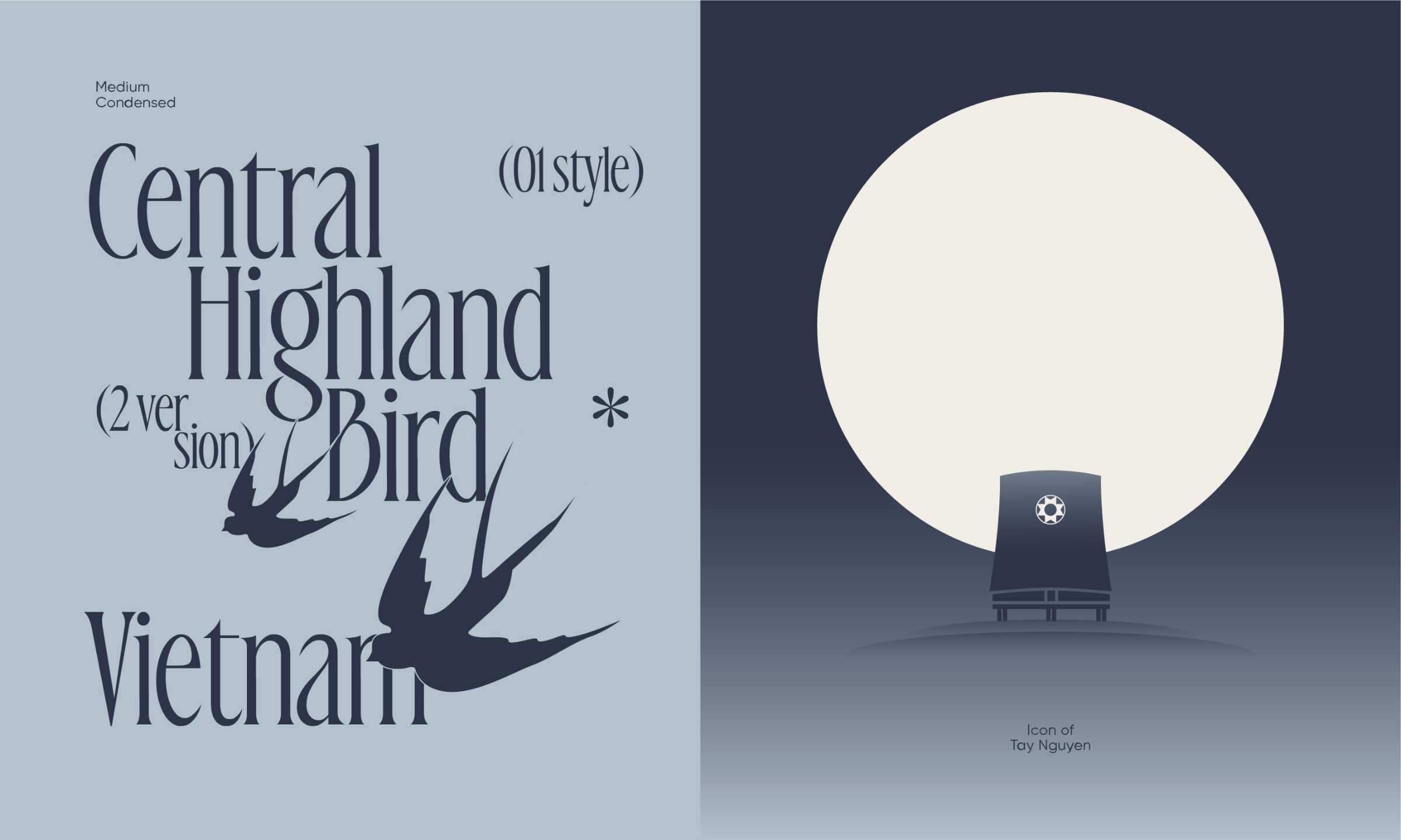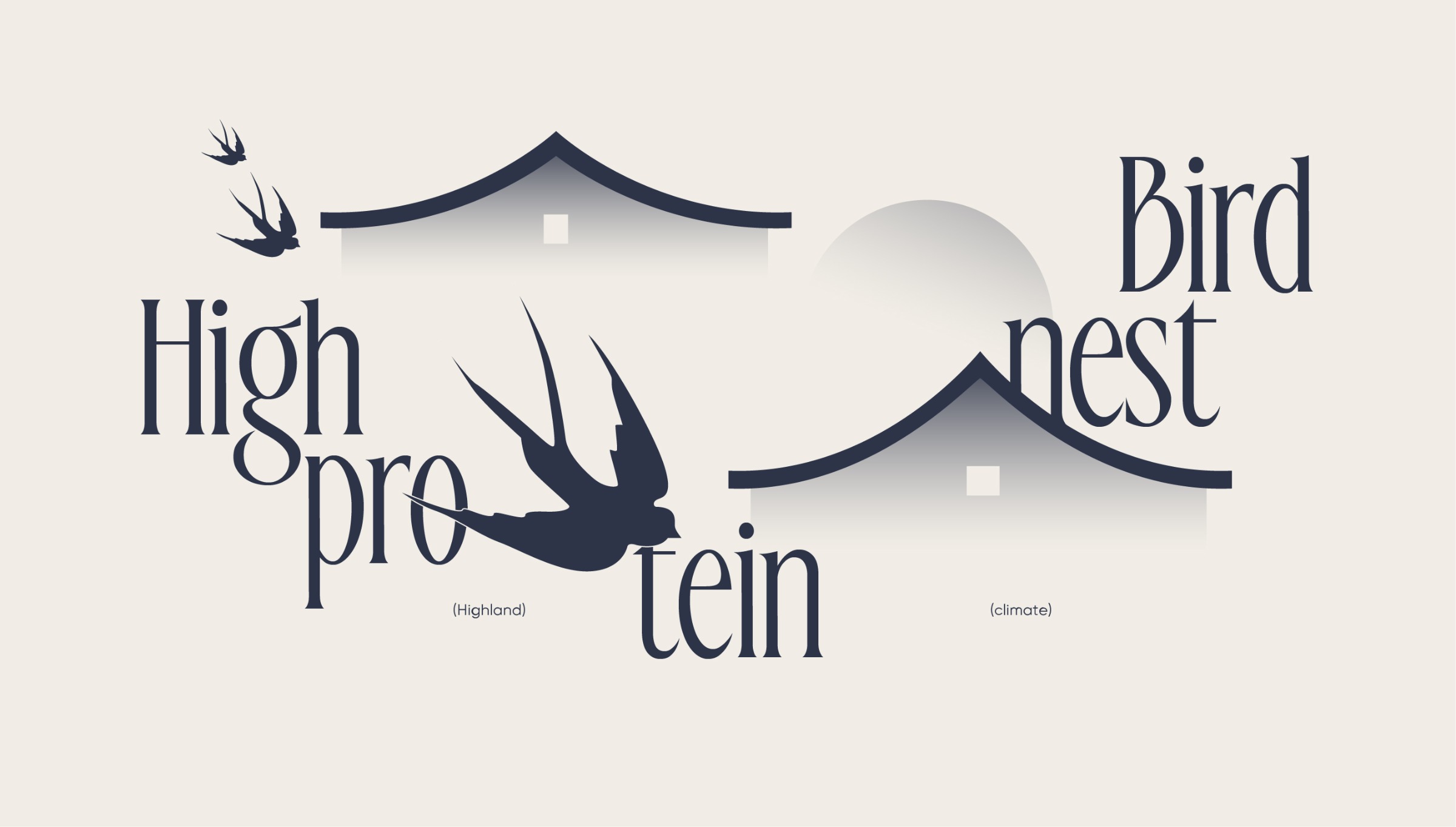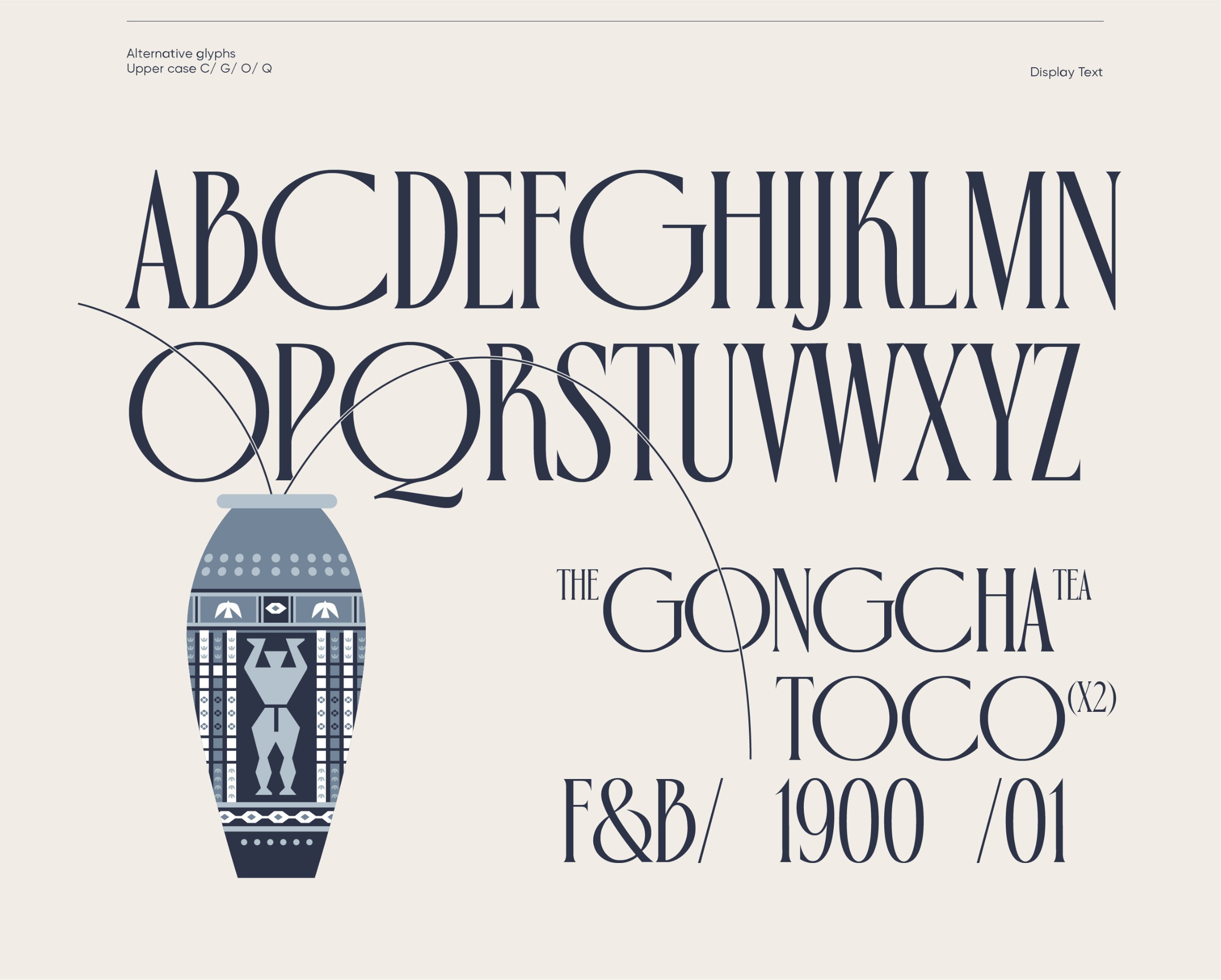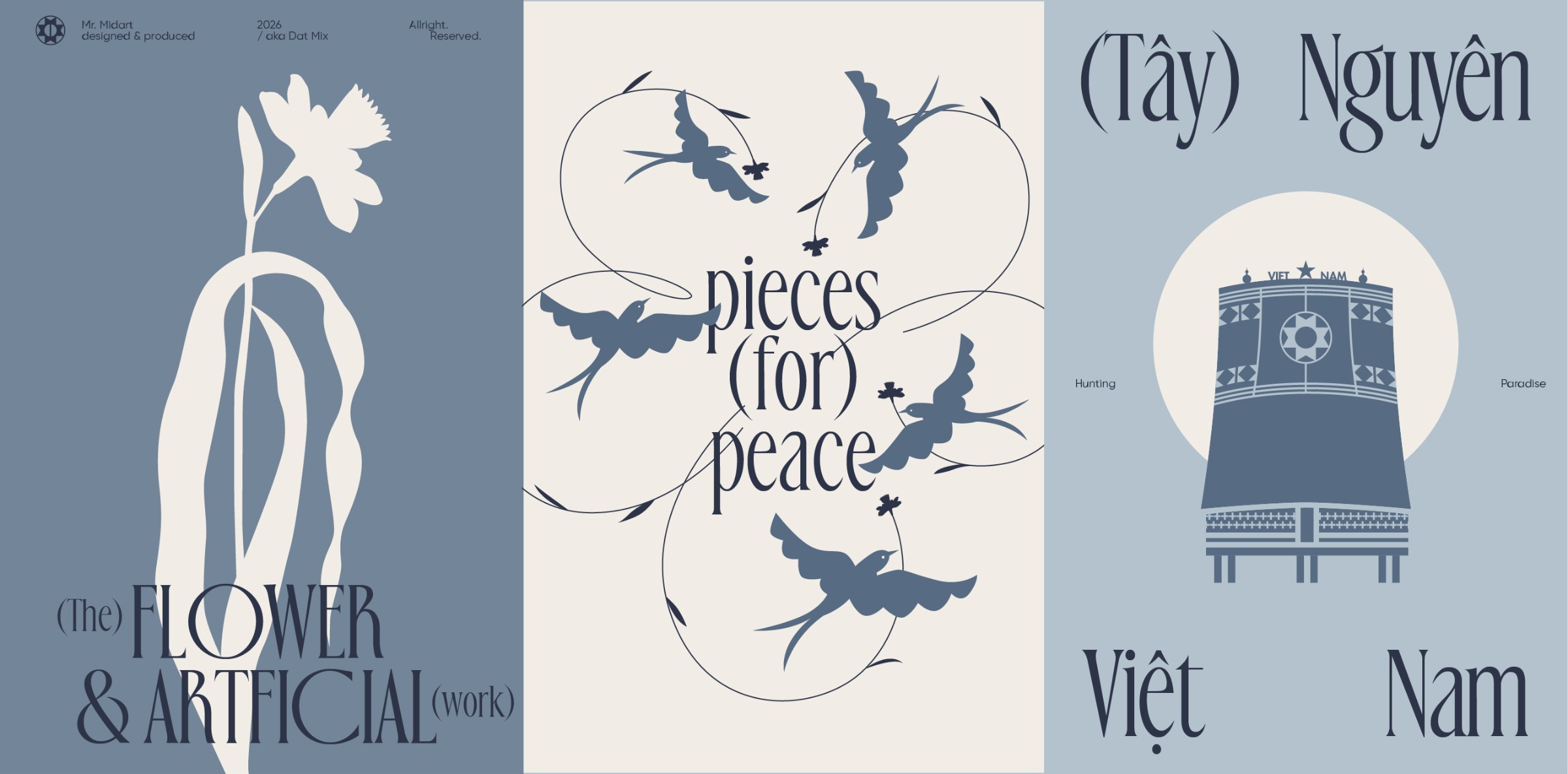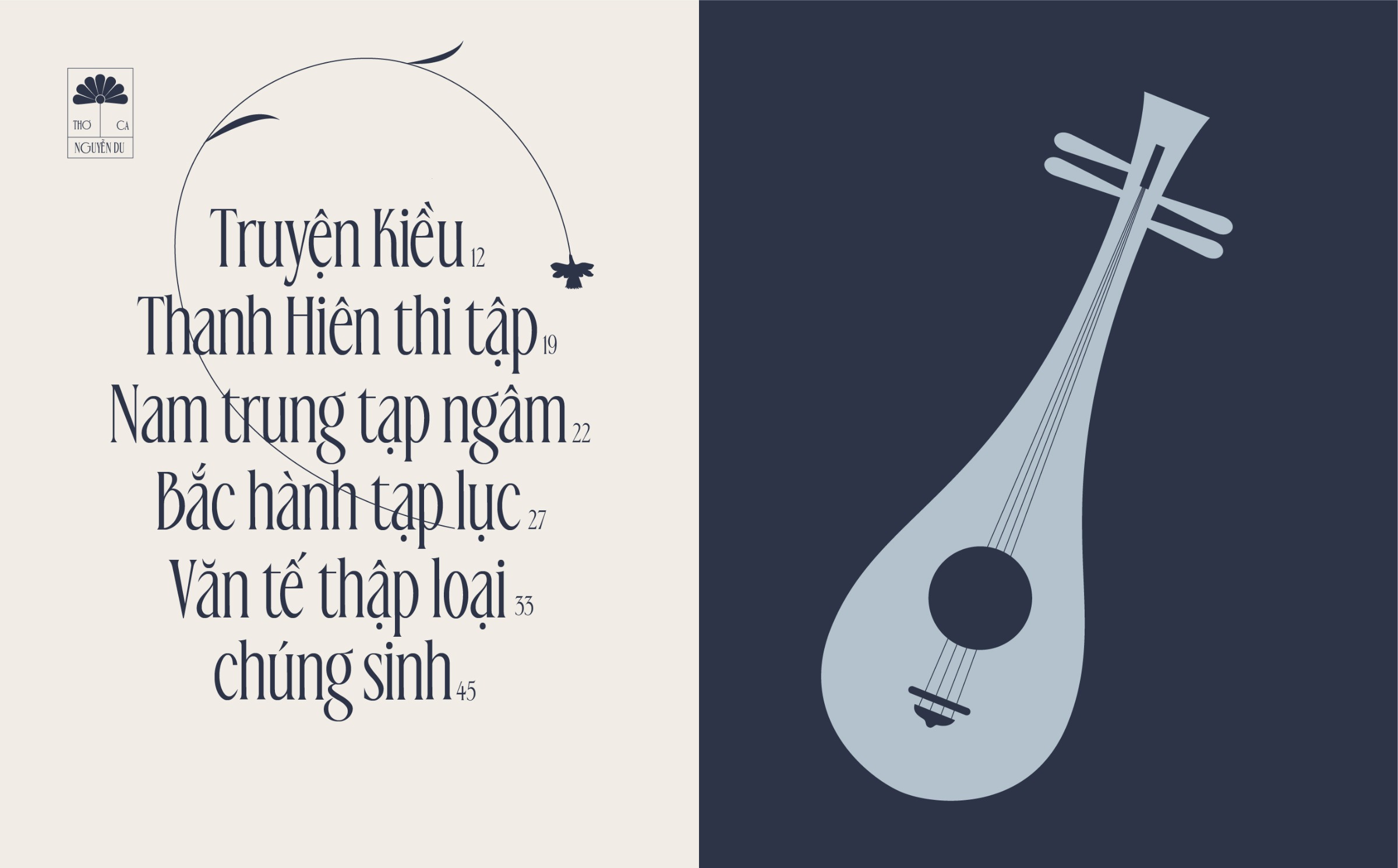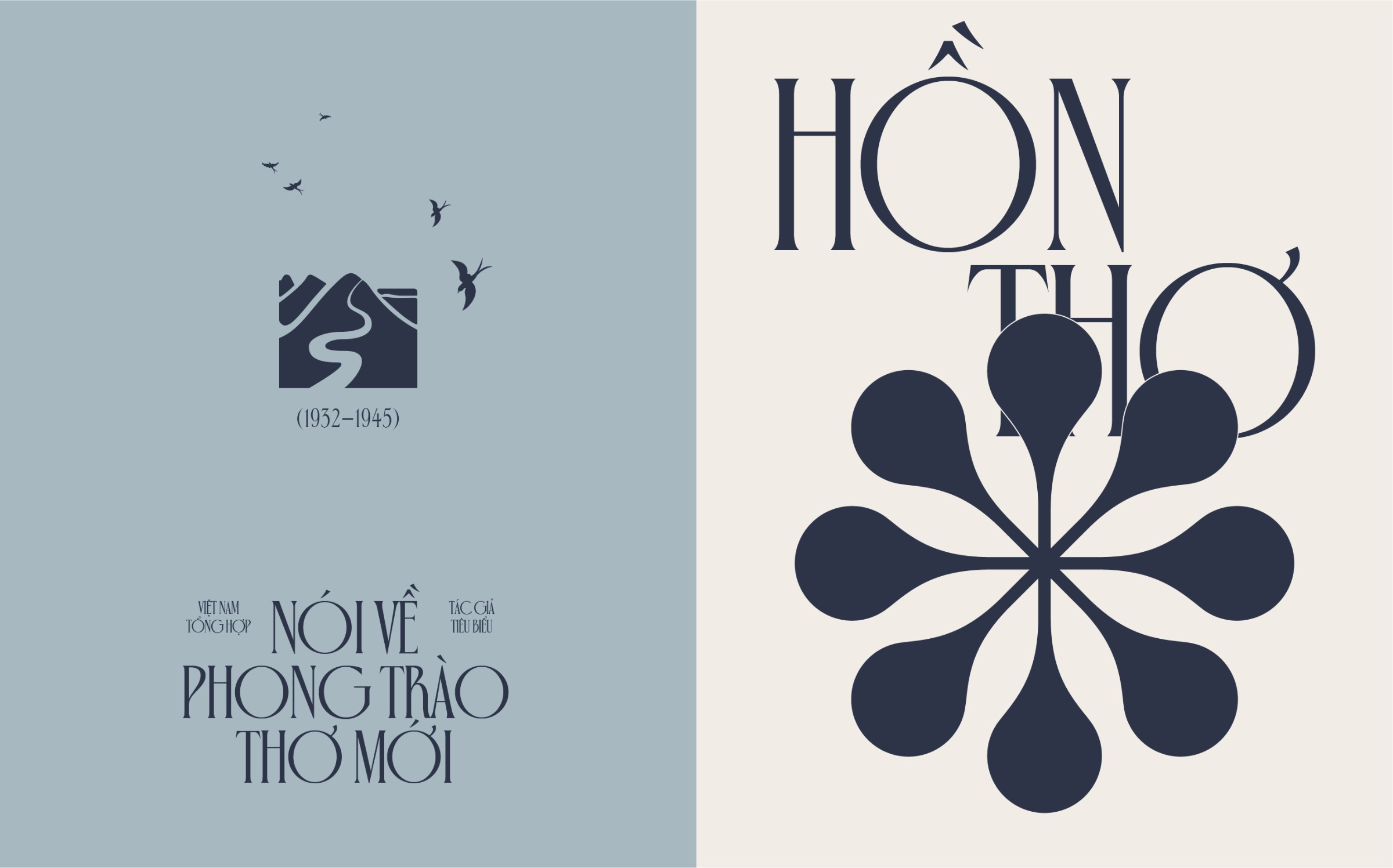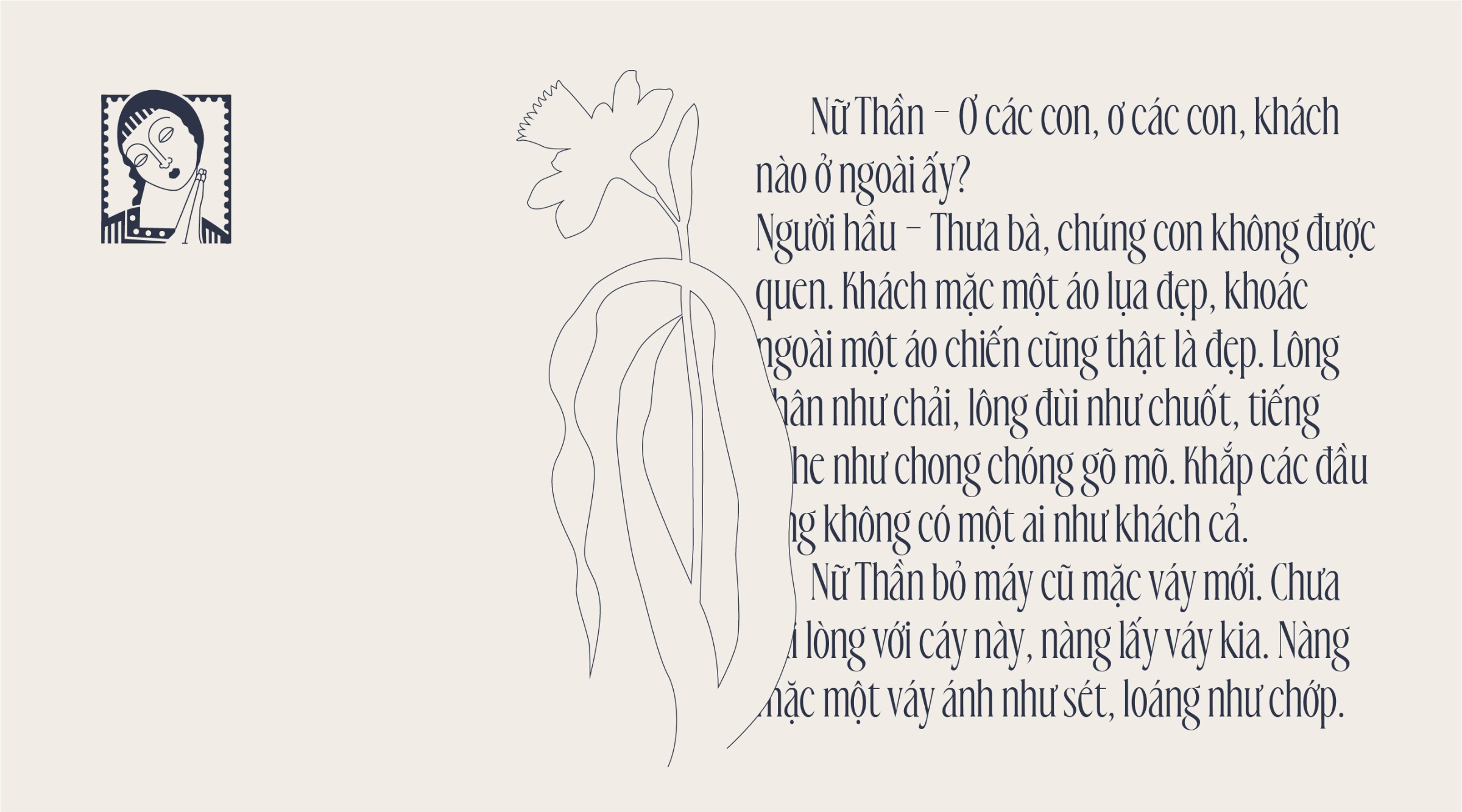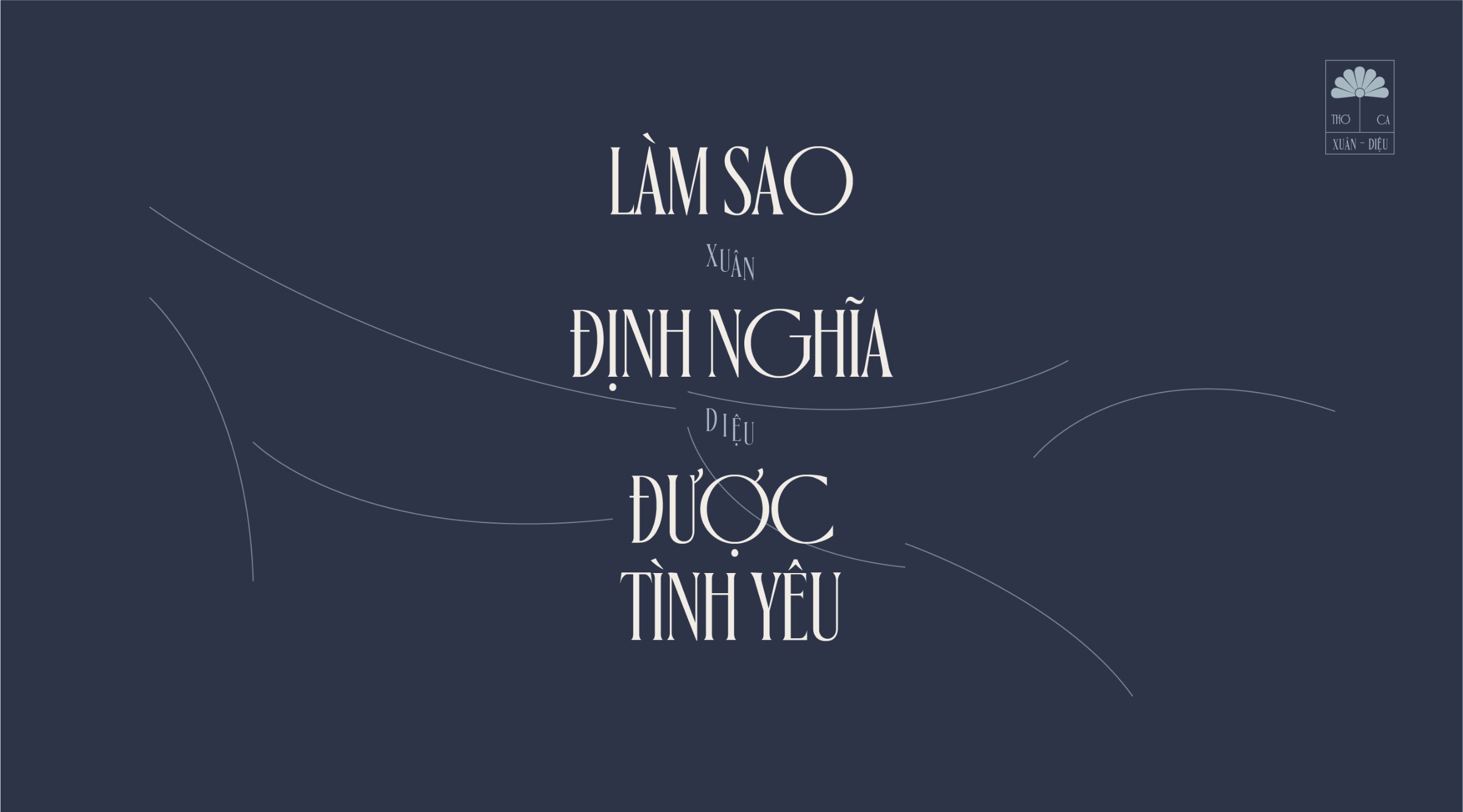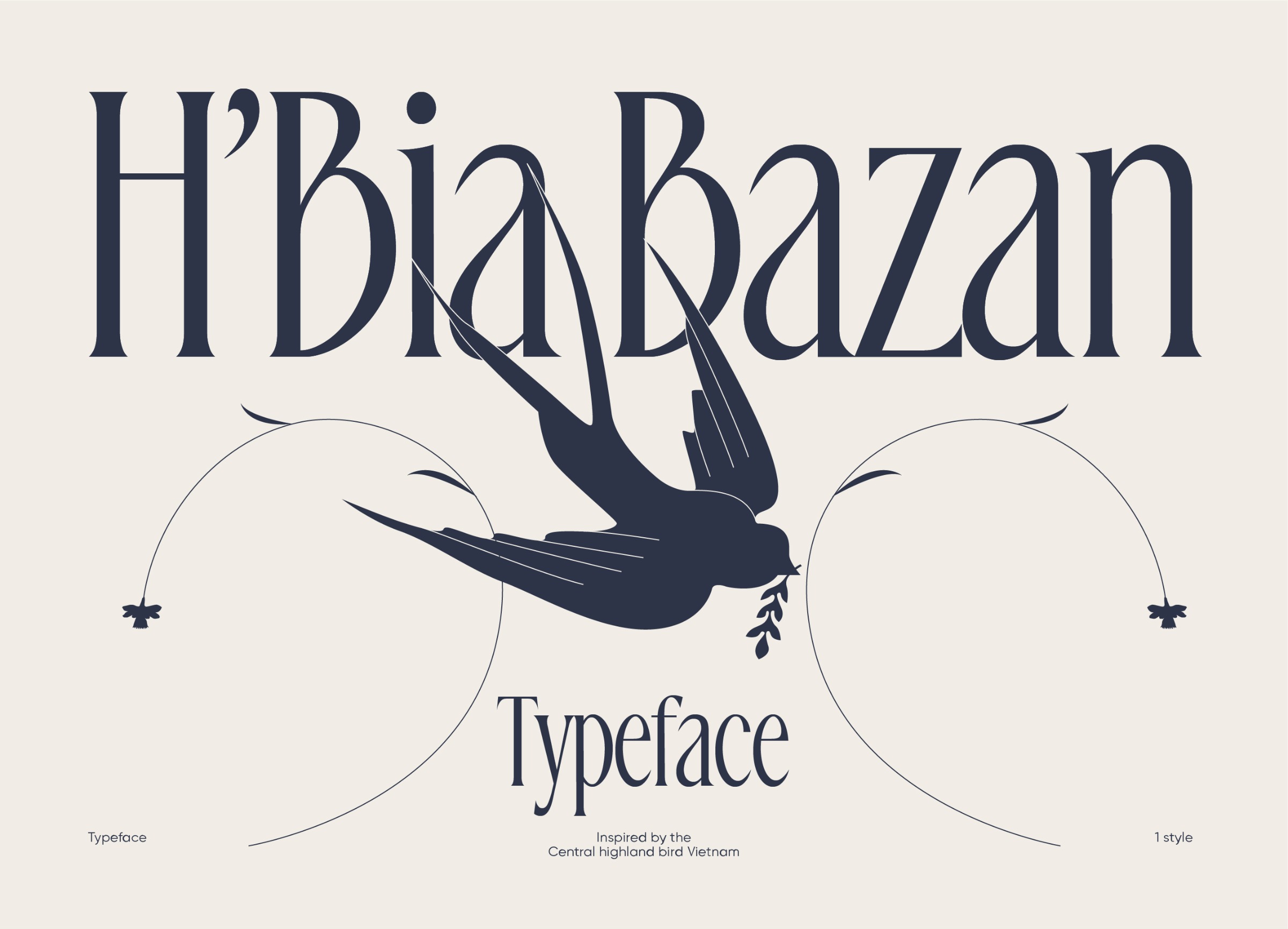
H'Bia Bazan Typeface
DM H’Bia Bazan© Typeface Inspired by the untamed spirit of Vietnam's Central Highlands, H'Bia reflects the origin of premium swiftlet nests cultivated in harmony with nature. The custom wordmark draws from the elegant movement of the swiftlet and the distinctive visual language of the Central Highlands, creating a unique identity rooted in both nature and culture. The typography combines contemporary elegance with timeless character. Soft, flowing curves evoke the swiftlet's graceful flight, while subtle flared serifs provide a sense of heritage, stability, and craftsmanship.